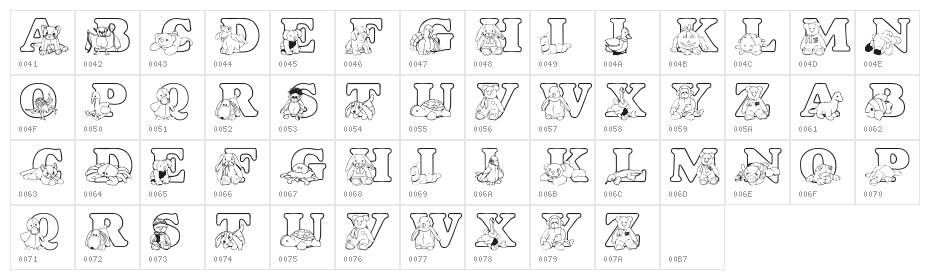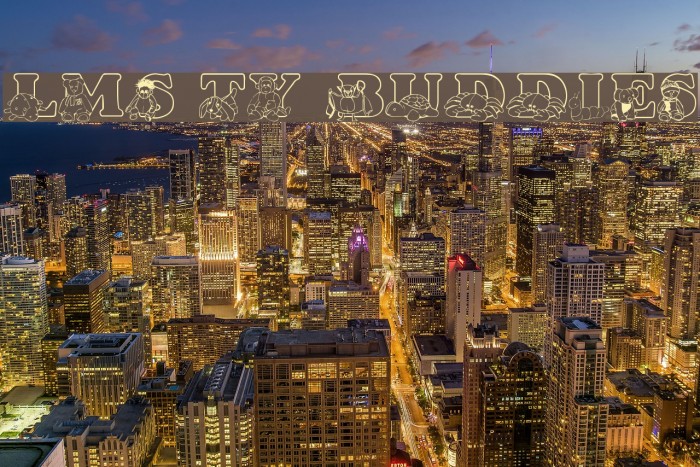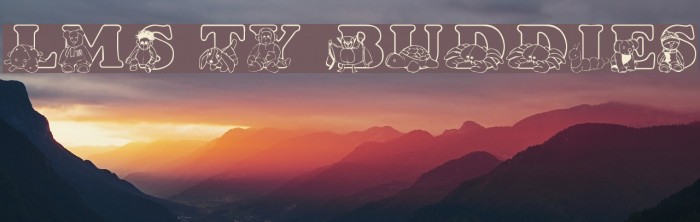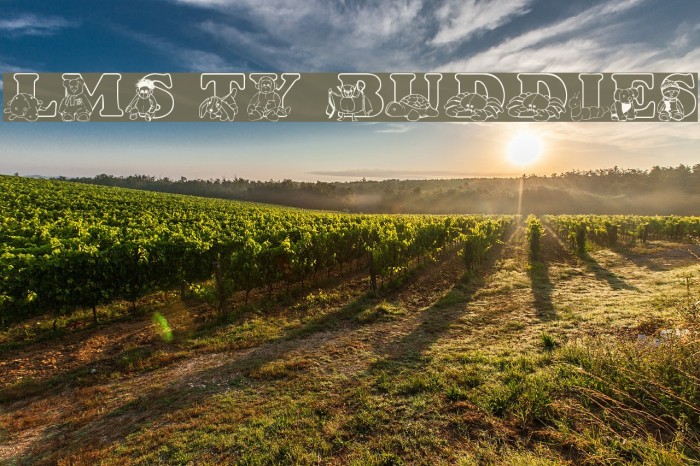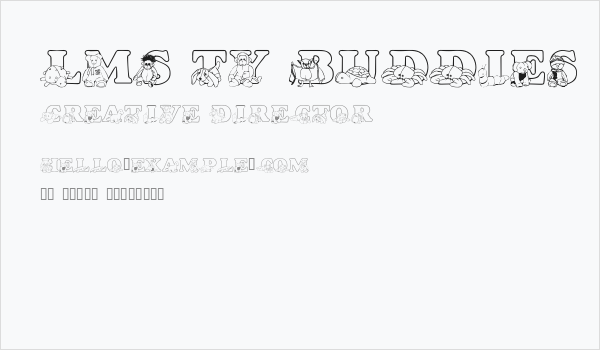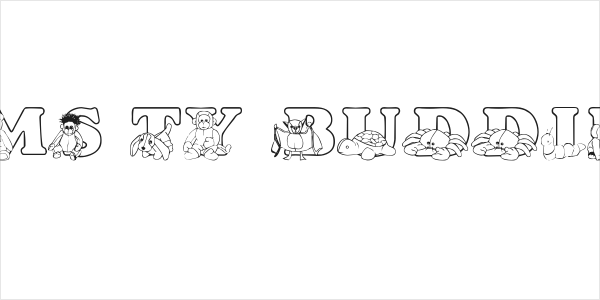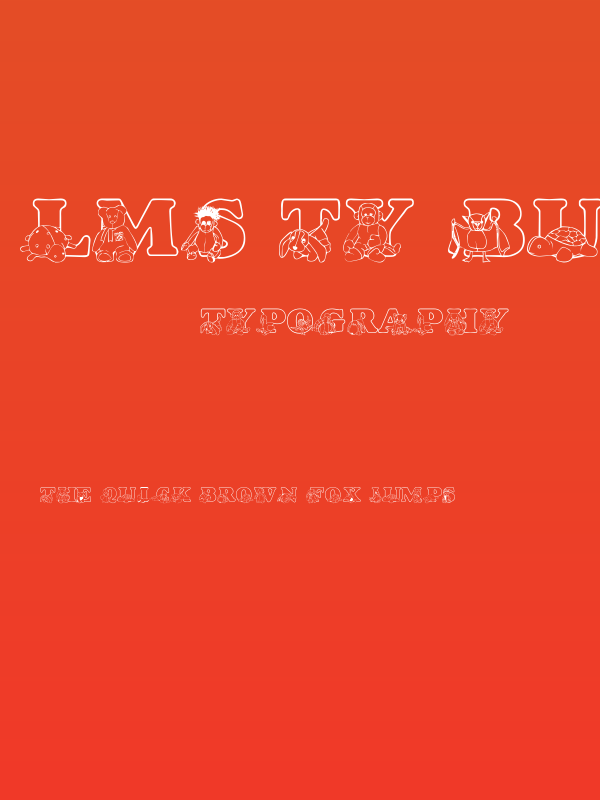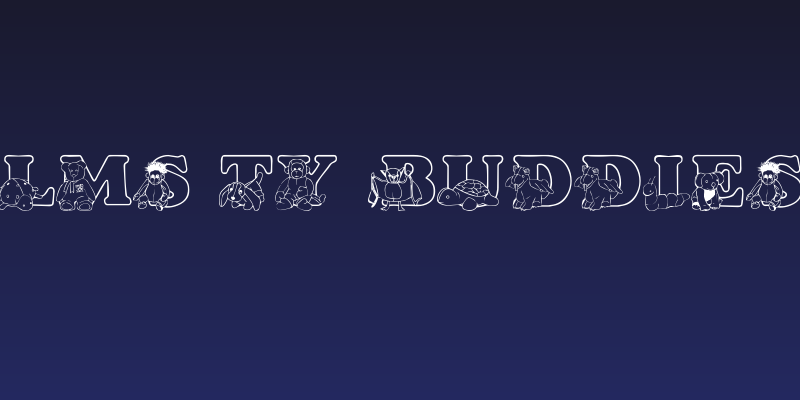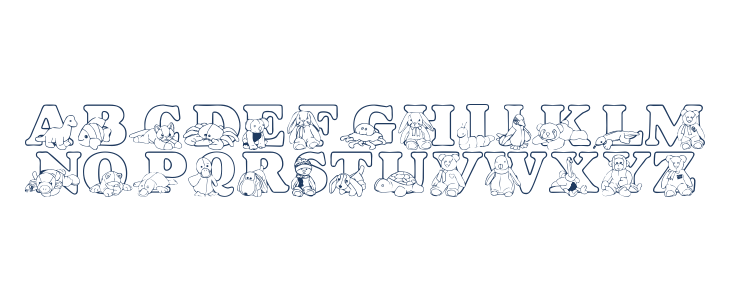
LMS Ty Buddies Font
LMS Ty Buddies Description
This playful and whimsical font features each letter of the alphabet accompanied by charming illustrations of various animals and creatures. The letters are bold and outlined, providing a strong contrast against the detailed and intricate drawings that accompany them. The style is reminiscent of children's storybooks, making it perfect for projects that require a touch of fun and creativity. The font maintains a consistent size and shape for each character, ensuring readability while allowing the illustrations to add a unique flair. The overall design is both engaging and visually appealing, ideal for capturing the attention of a young audience.
| Use Case | Headlines, Children's materials, Creative projects |
| Proposed Projects | Ideal for children's books, educational materials, playful branding, and creative posters. |